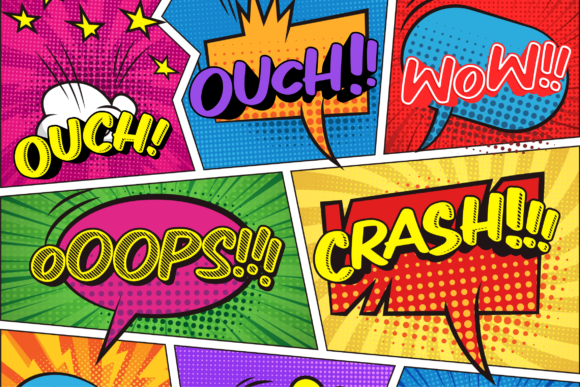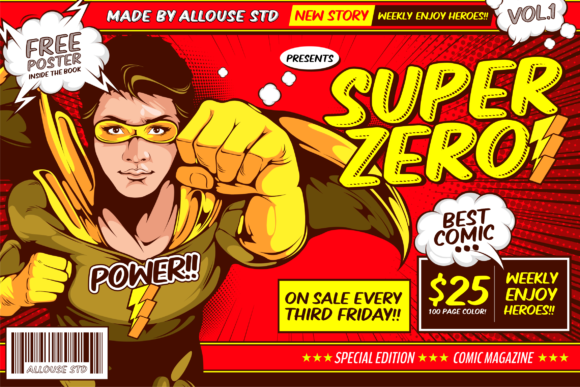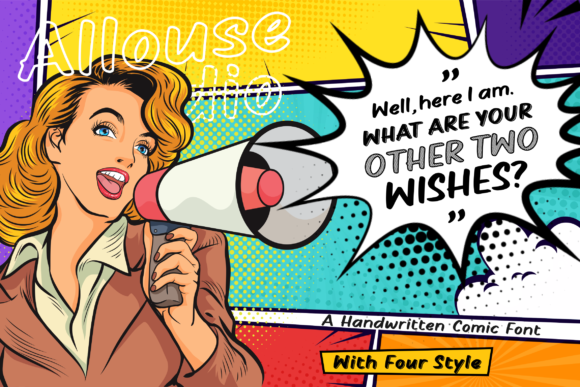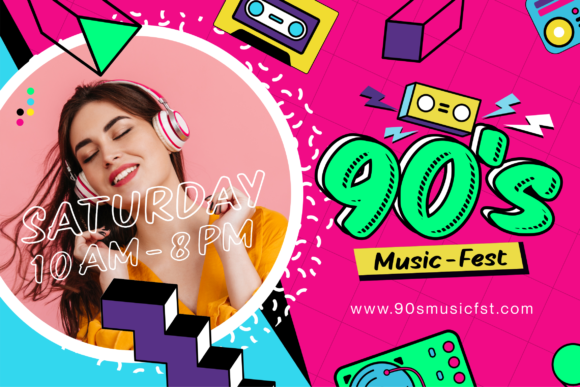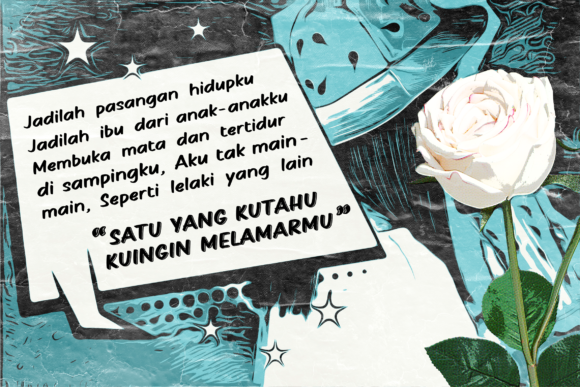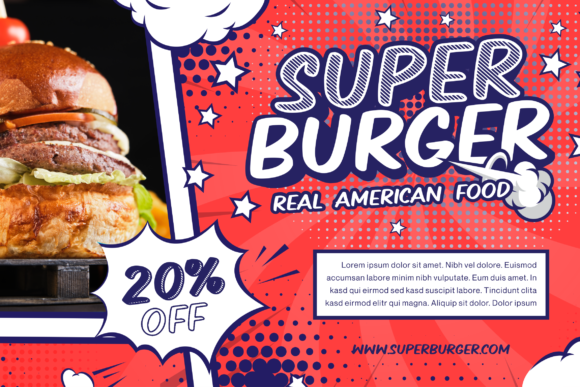
Introduction to Comickes Font
Comickes is a fun, bubbly and thick lettered display font.
It is perfect for product packaging, branding project, magazine covers, social media, wedding, or just used to express words above the background .
Key Features of Comickes Font
Why Choose Comickes Font?